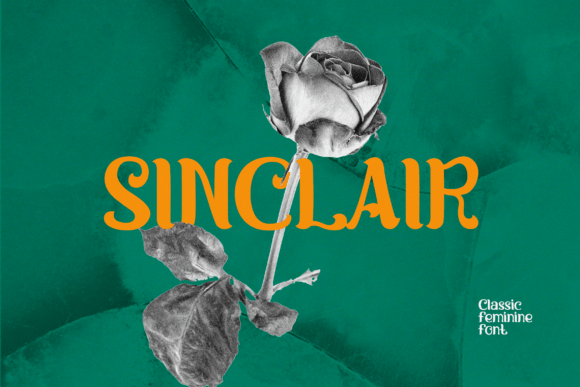
Introducing Sinclair Font, the enchanting serif font that evokes a captivating fusion of classic elegance and modern flair. Crafted with meticulous attention to detail, Sinclair's graceful curves and swashes dance effortlessly across the page, leaving an unforgettable impression.
Step into a world where sophistication meets allure, where Sinclair's feminine charm captivates the senses. Its timeless design draws inspiration from the golden age of cinema, evoking the glamour and grace of Hollywood's leading ladies. With Sinclair, your creations will radiate an air of refinement and timeless beauty.
Whether you're crafting captivating movie titles, designing alluring posters, or creating elegant stationery, Sinclair's versatility knows no bounds. Its delicate balance of boldness and femininity makes it the perfect choice for projects that demand a touch of captivating charm.
Indulge in the enchanting world of Sinclair Font, where your creations will blossom with timeless elegance and a touch of cinematic magic.